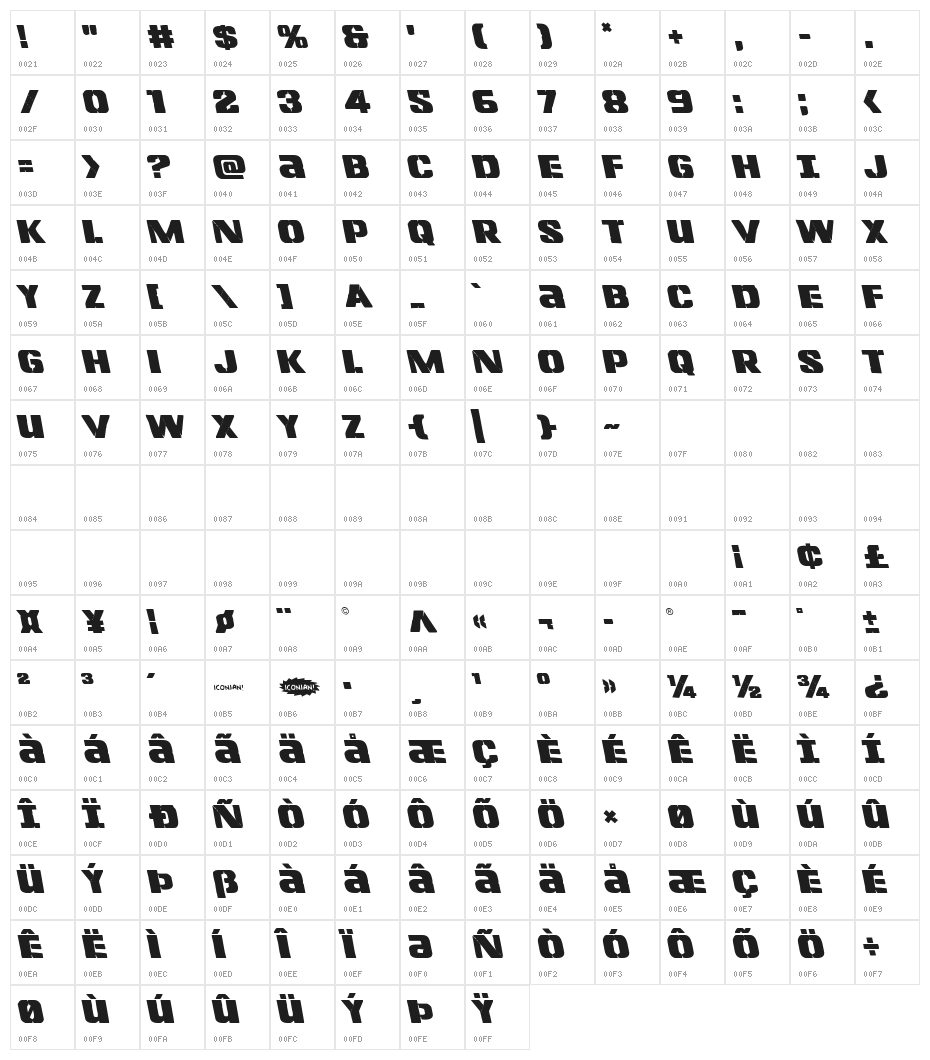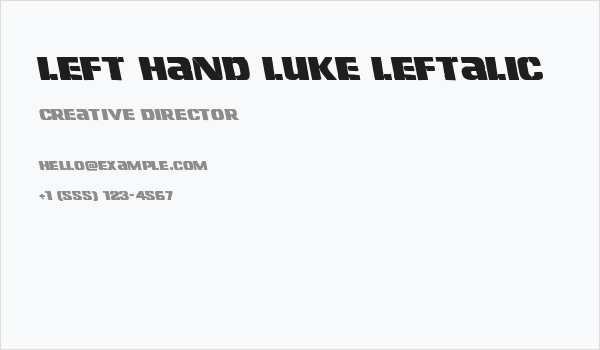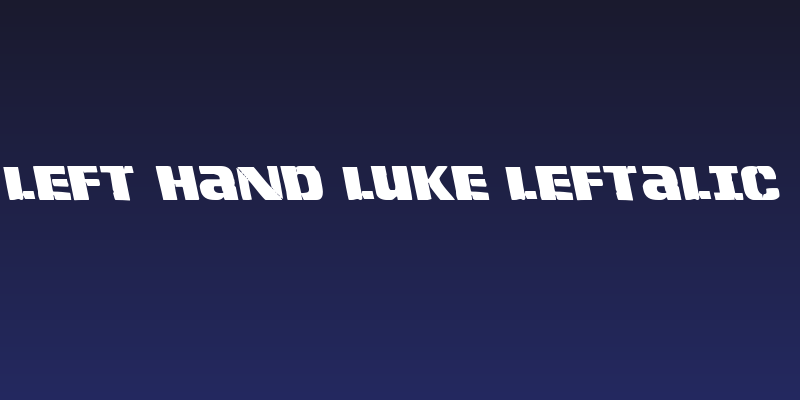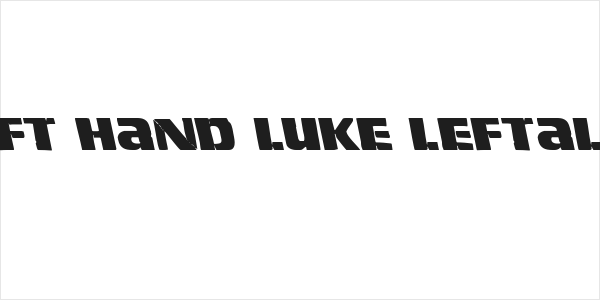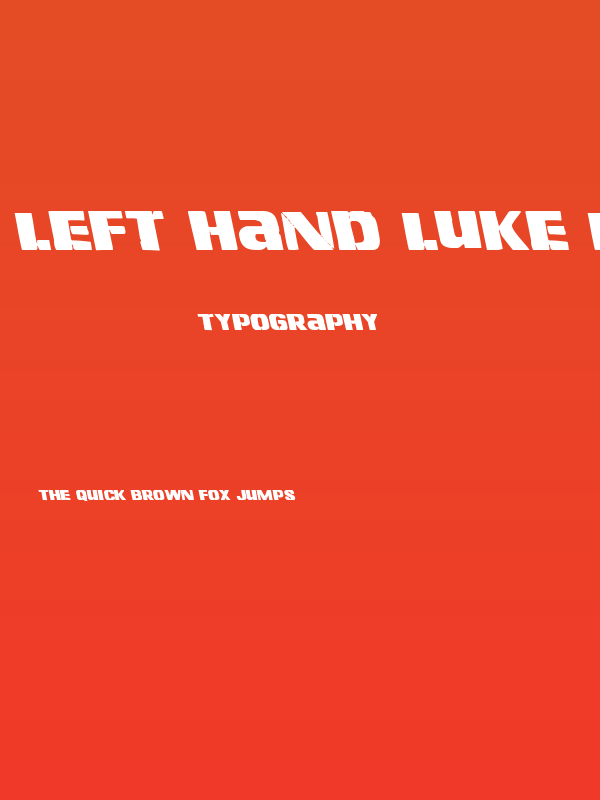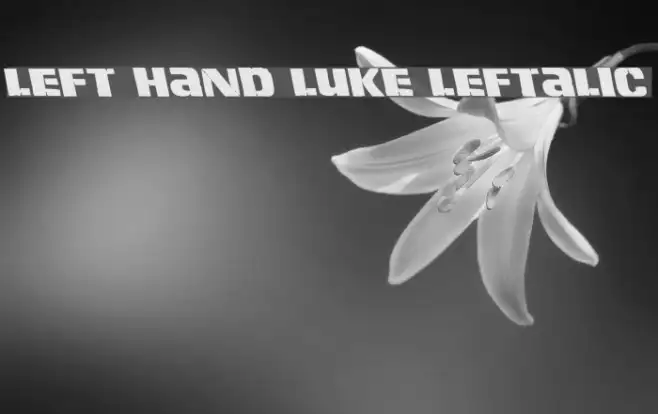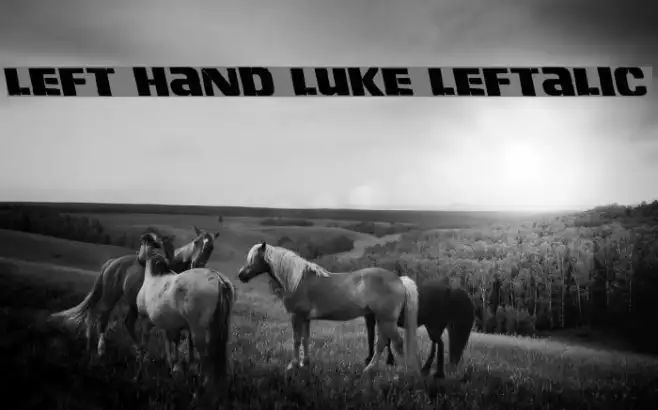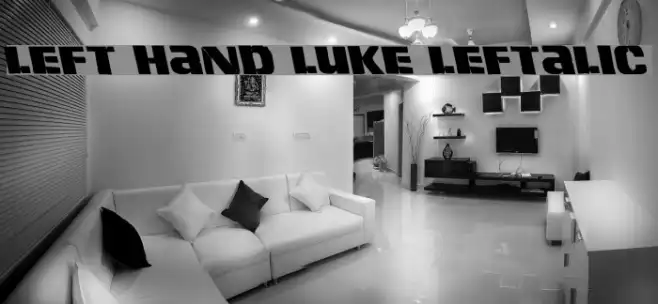
Left Hand Luke Leftalic Font
Left Hand Luke Leftalic Description
This font features a bold, stencil-like appearance with a distinct, rugged style. The characters are heavily weighted with a blocky structure, giving them a strong and impactful presence. The design incorporates irregular cuts and angles, adding a sense of dynamism and movement. Each letter is slightly slanted, enhancing the sense of motion and energy. The font's unique aesthetic makes it ideal for projects that require a bold and unconventional look. It is particularly suitable for designs that aim to convey strength, edginess, or a modern industrial feel.
| Overall Style | Modern, Industrial |
| Proposed Projects | Ideal for posters, album covers, branding for edgy or industrial-themed products, and any design requiring a strong visual impact. |